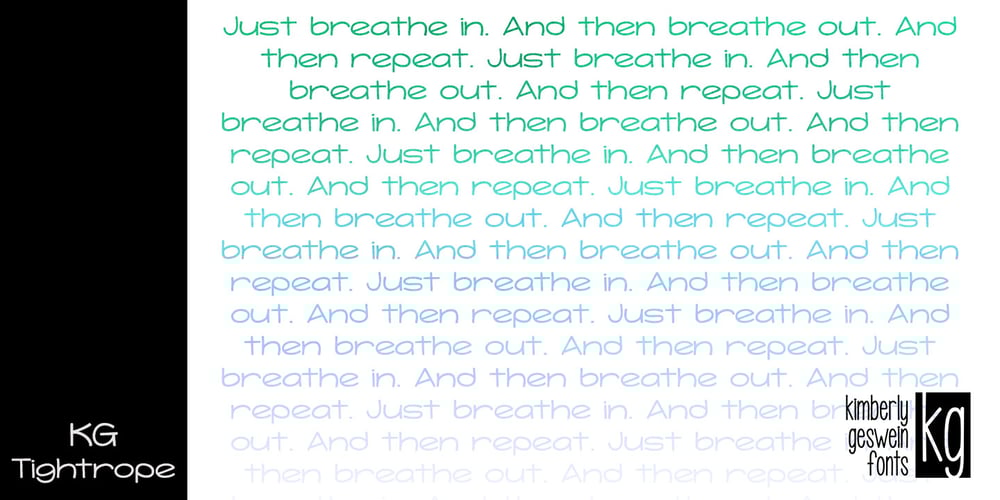
KG Tightrope Font Family was designed by Kimberly Geswein and published by Kimberly Geswein. KG Tightrope contains 1 styles and family package options. I love the feel of a short, wide font. This handwritten font is a great way to mix and match heights and widths in a design.